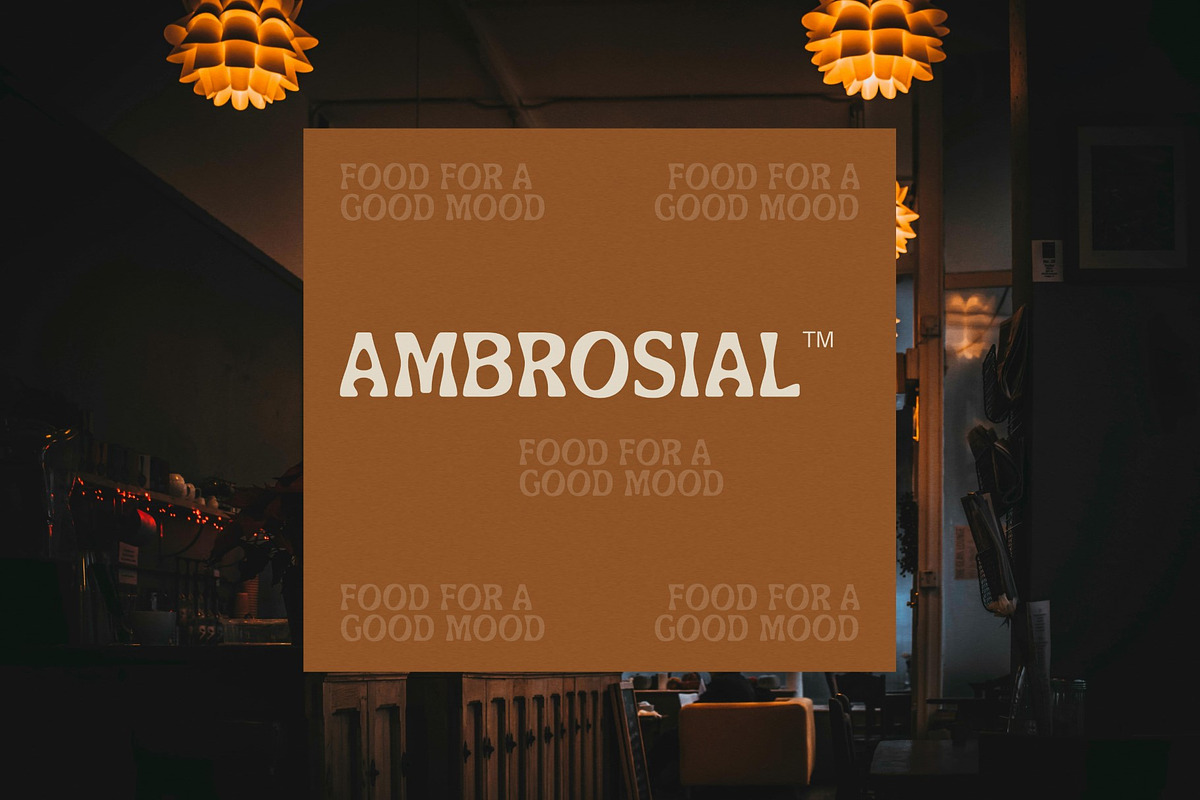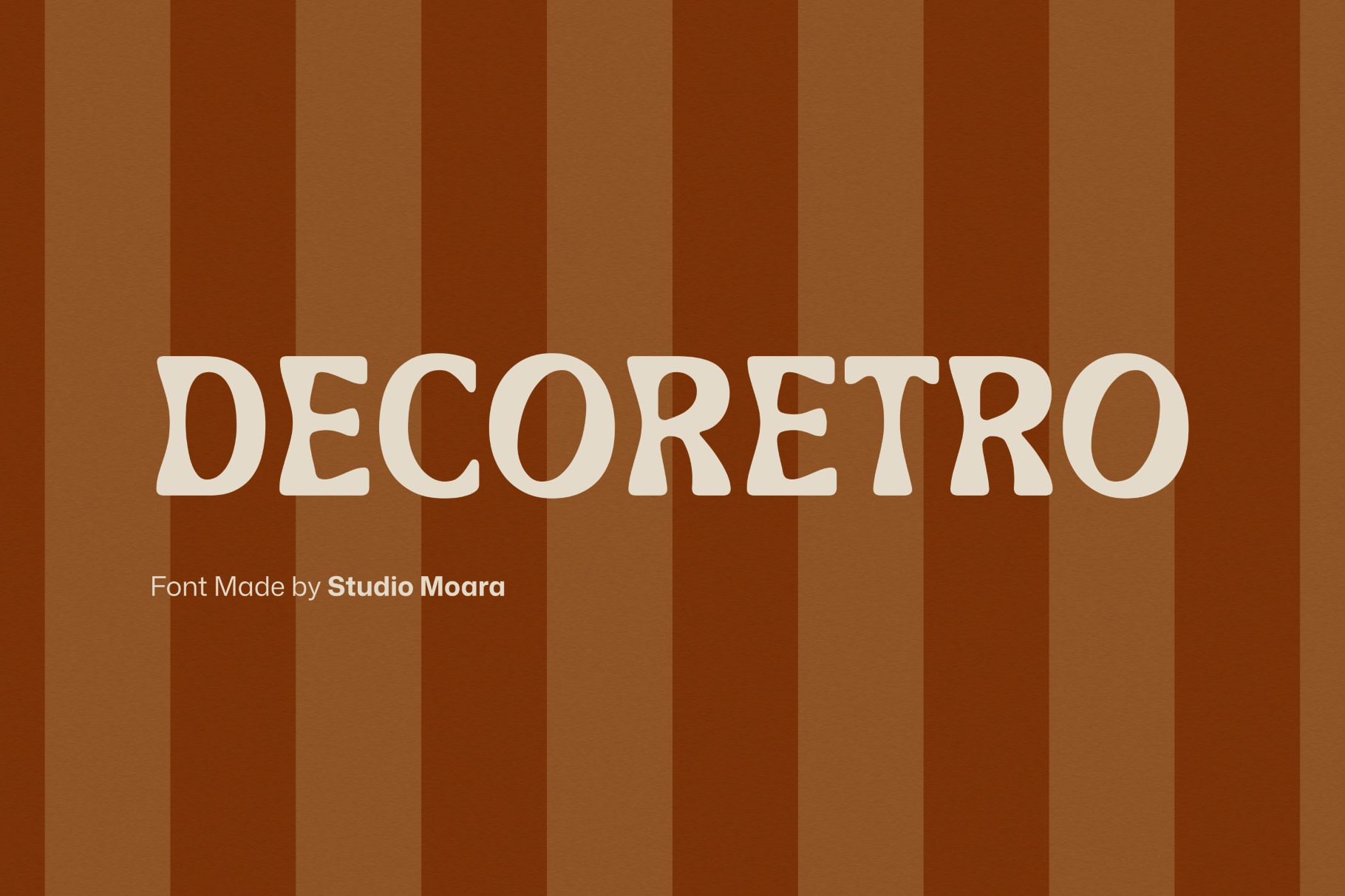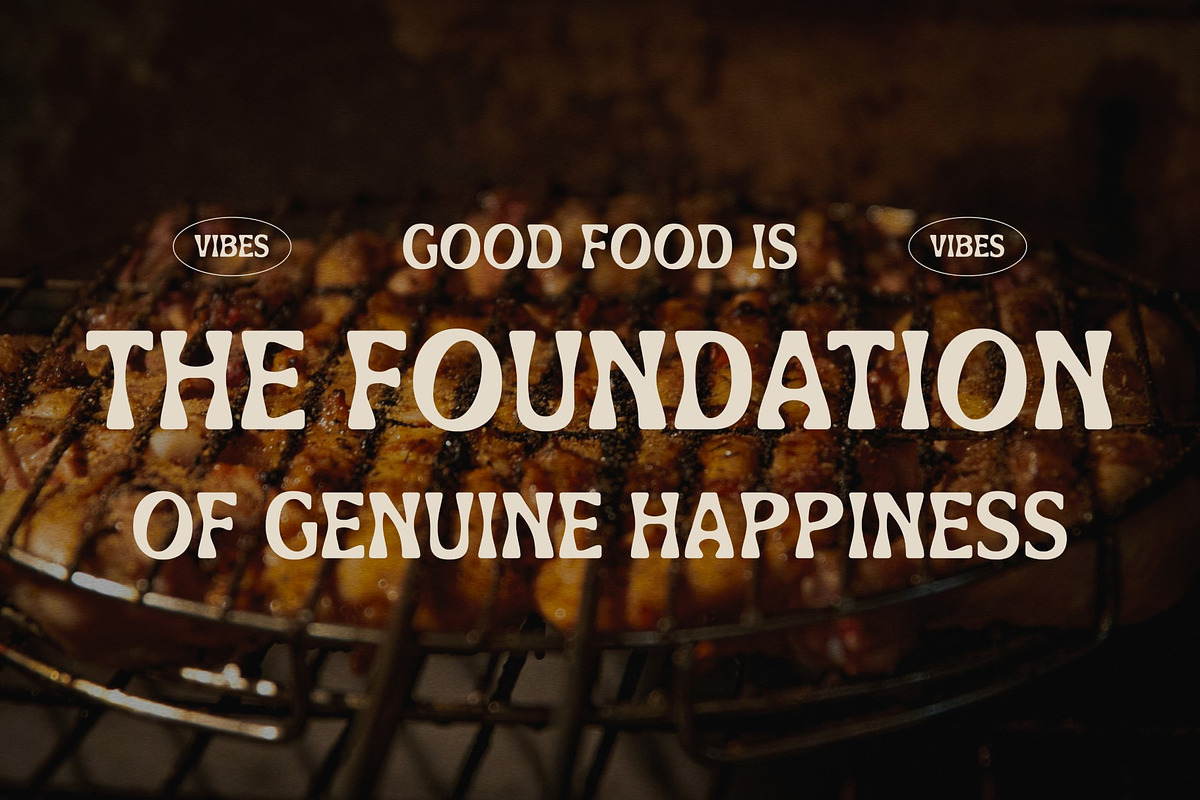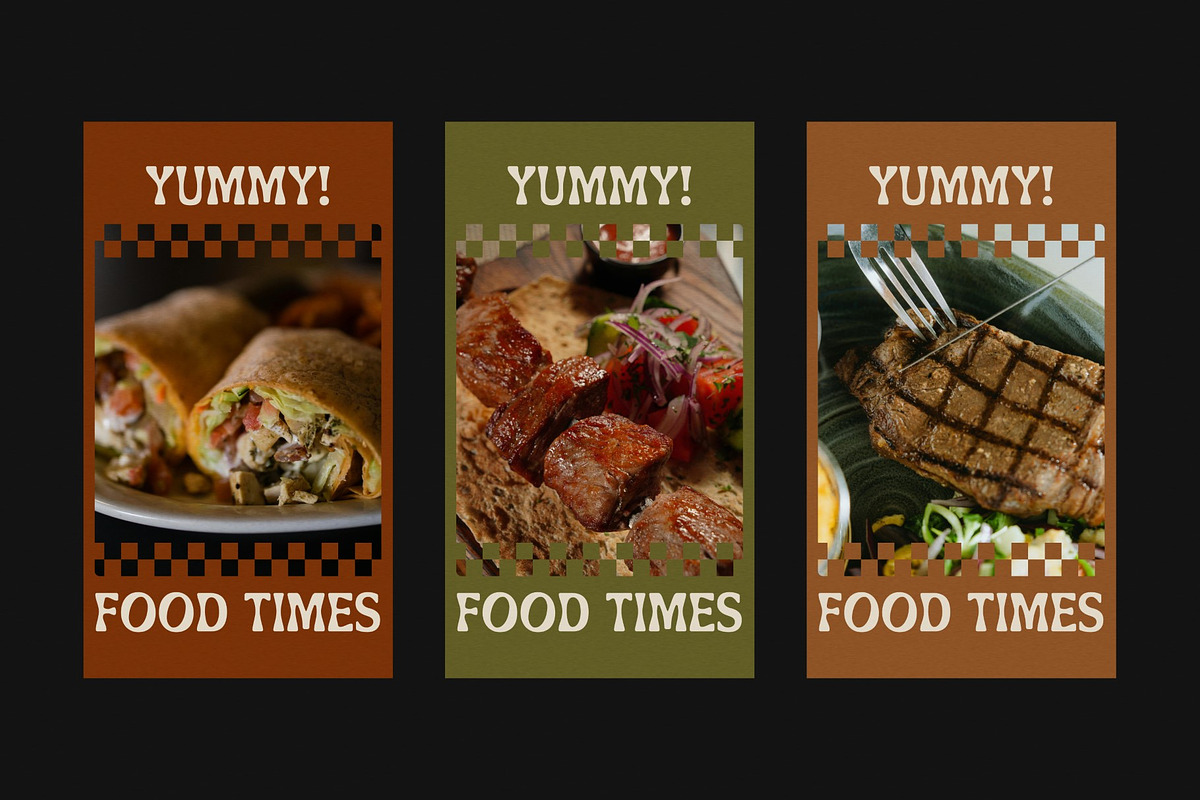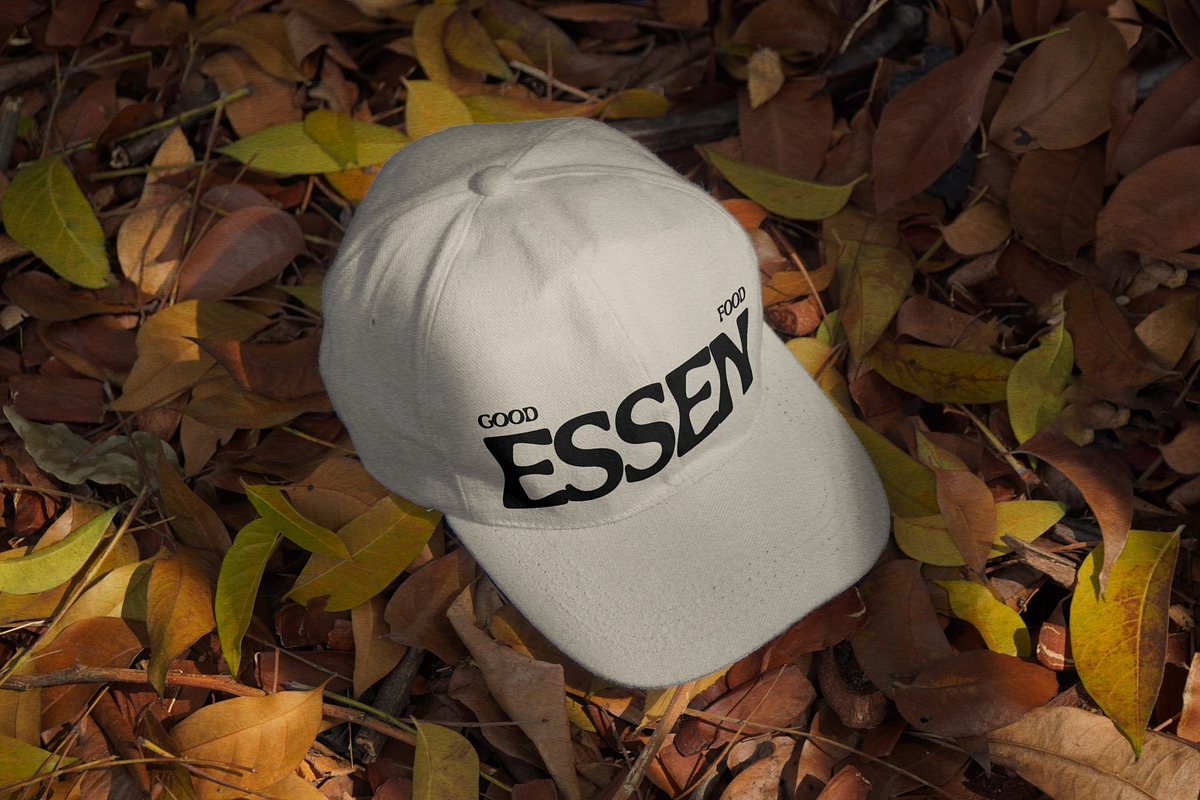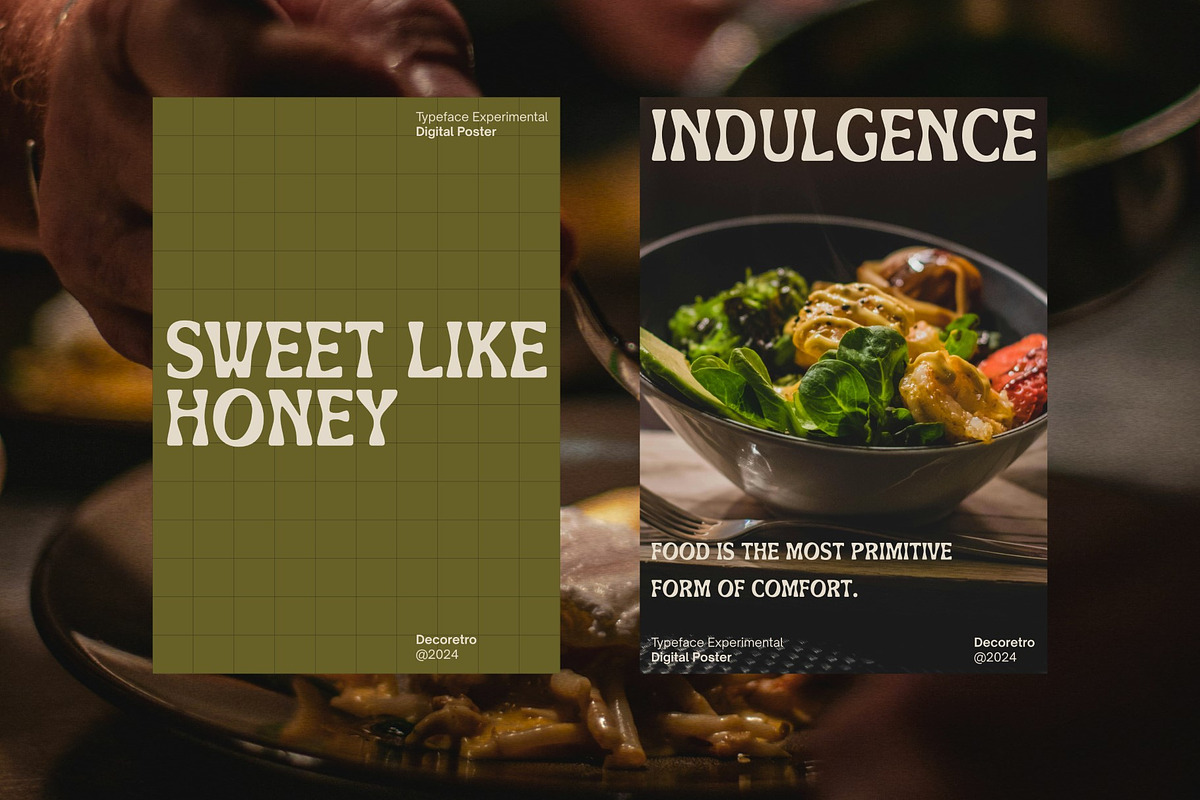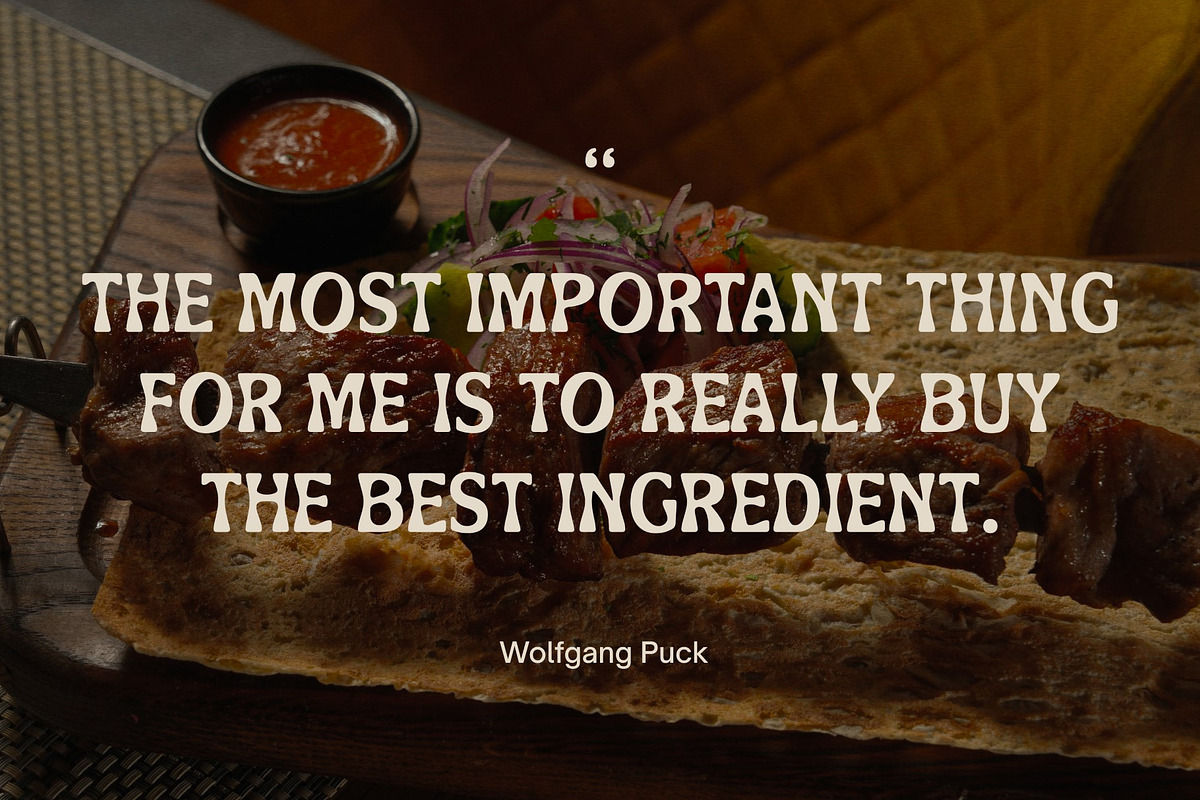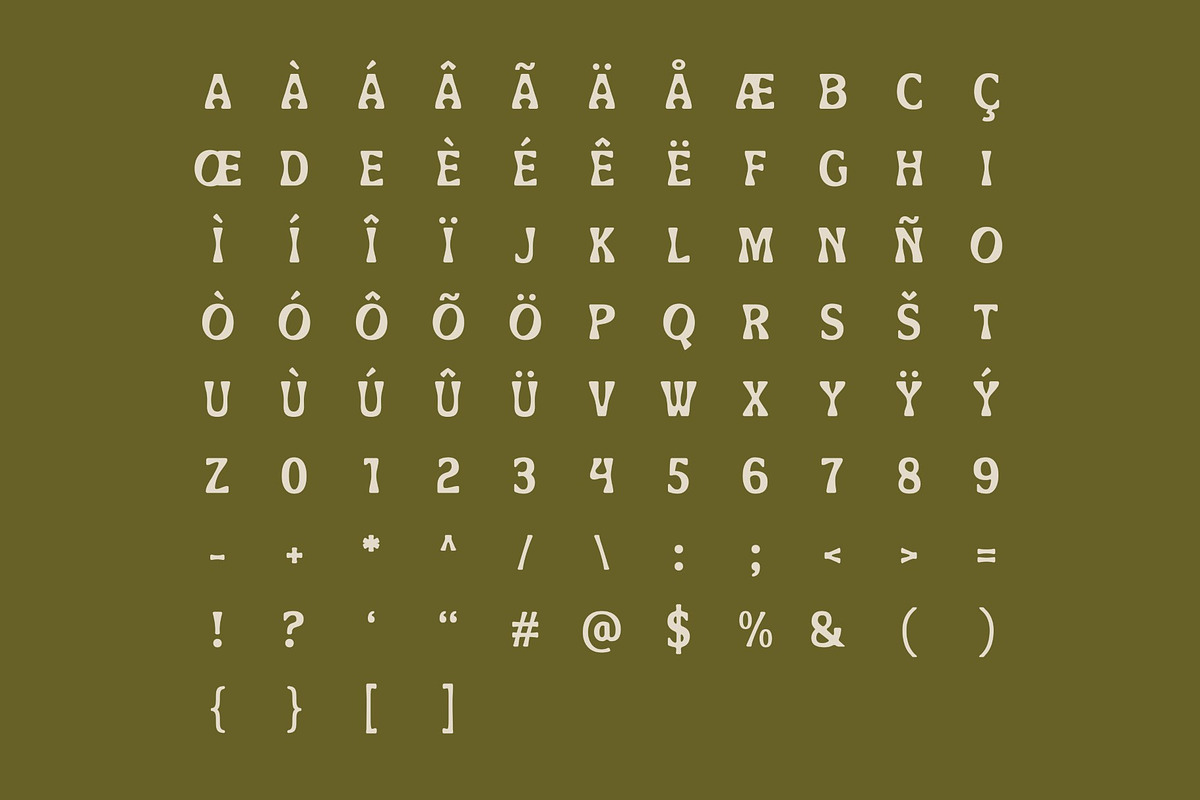
Decoretro - Retro Display Font
Decoretro is a playful retro display font that brings a nostalgic vibe to your designs. Perfect for posters, flyers, and branding projects, Decoretro captures the essence of vintage aesthetics with a modern twist. The bold and quirky characters make your text stand out, while the unique style adds a touch of fun and creativity. Ideal for projects seeking a retro-inspired look, Decoretro is versatile, eye-catching, and full of personality.